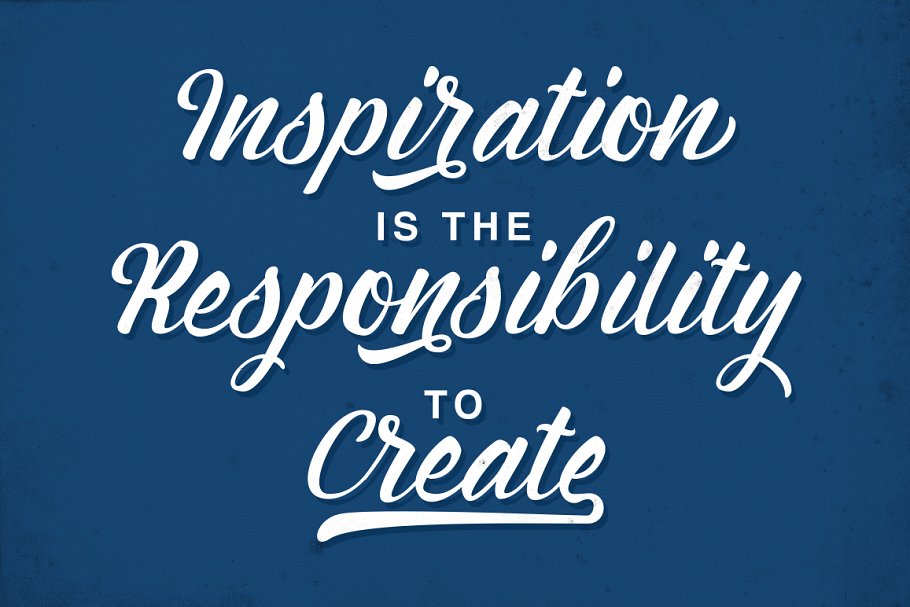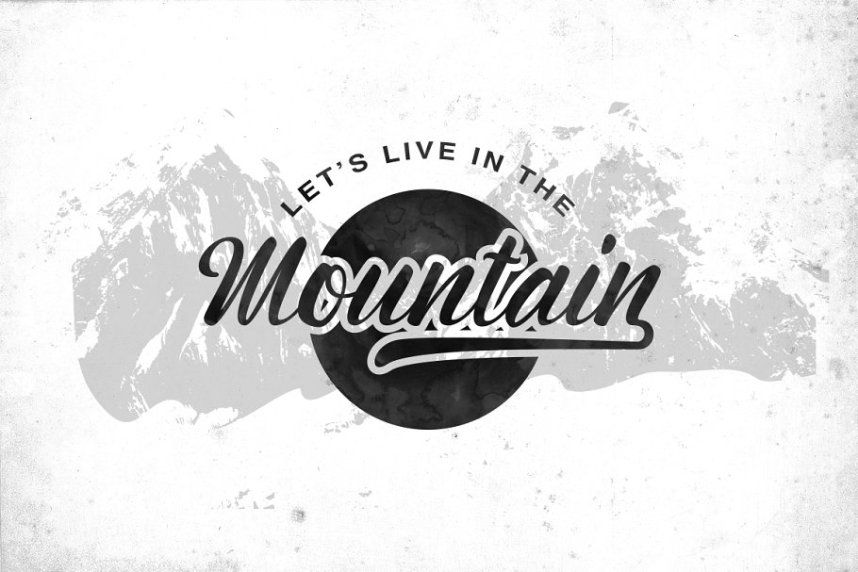
Montagne Script Font
Introducing Montagne Typeface. The Montagne Typeface is a beautiful hand Painting script give the natural looks. Alternate character contain with Ligature and more. Great for Apparel Brand, Logos, printed quotes, invitations, image overlays, greeting cards, product packaging, text headers, any greeting cards, book cover, Painting design style, or any design that needs natural and personal touch & whatever else your imagination holds!